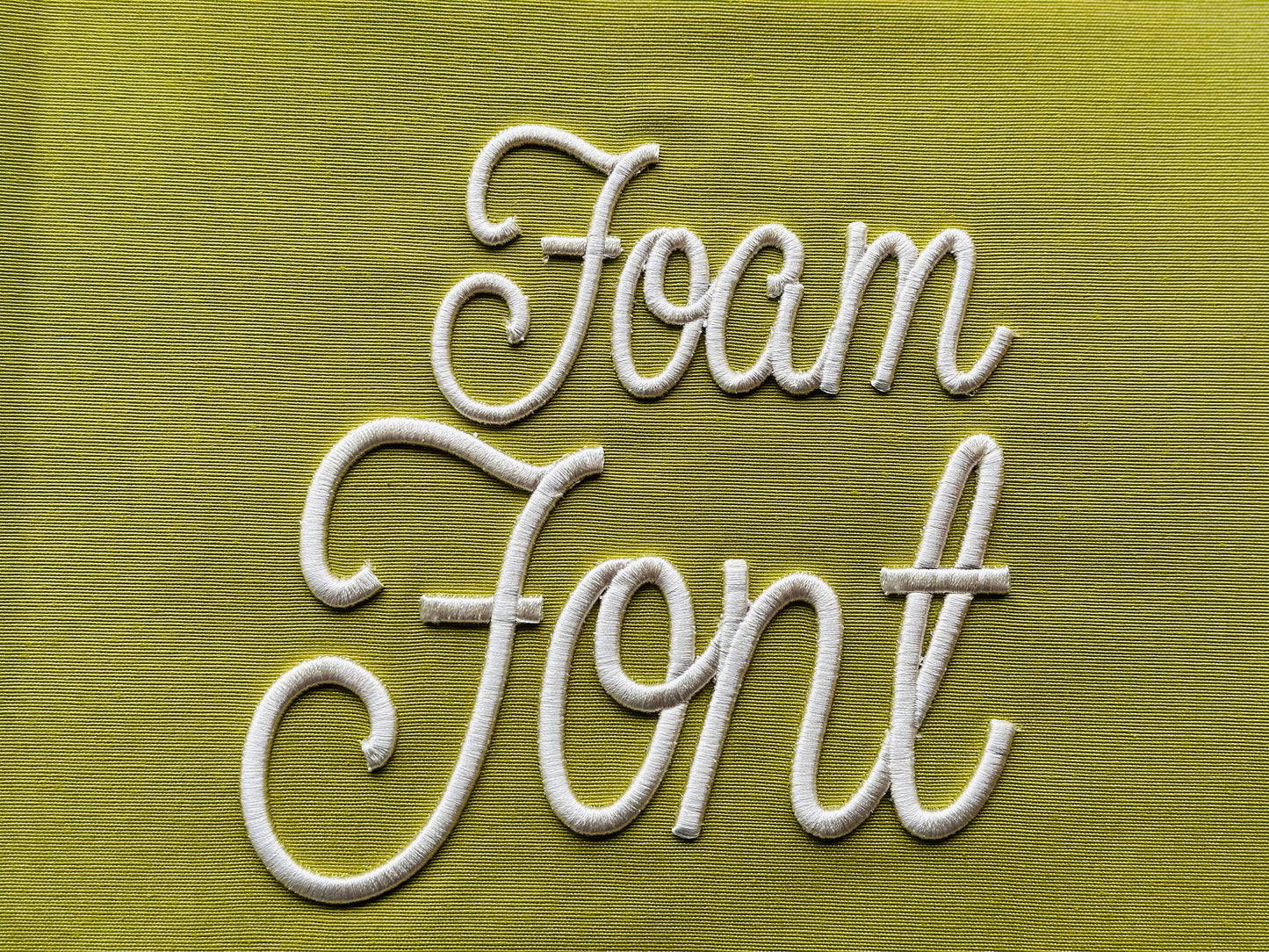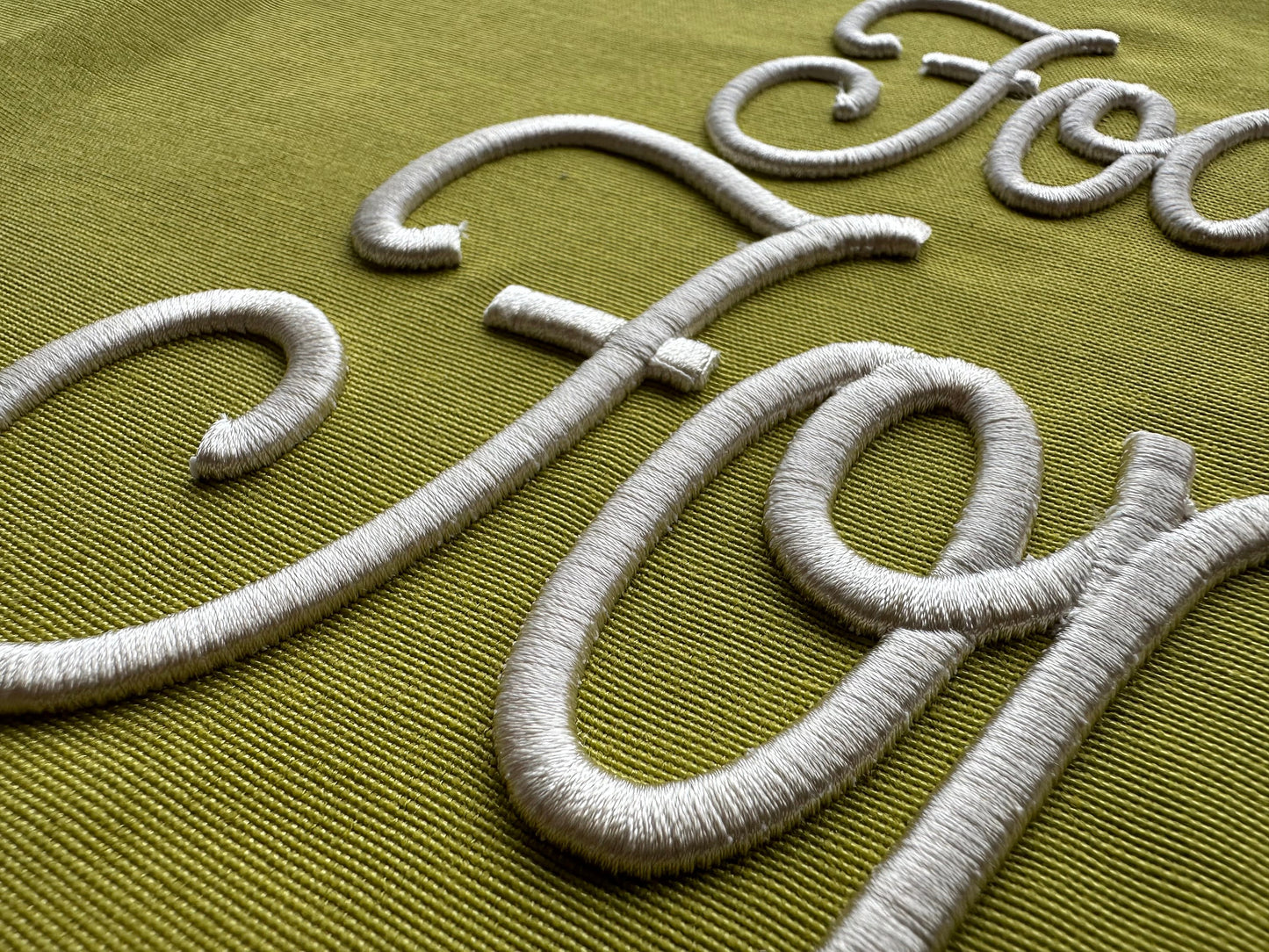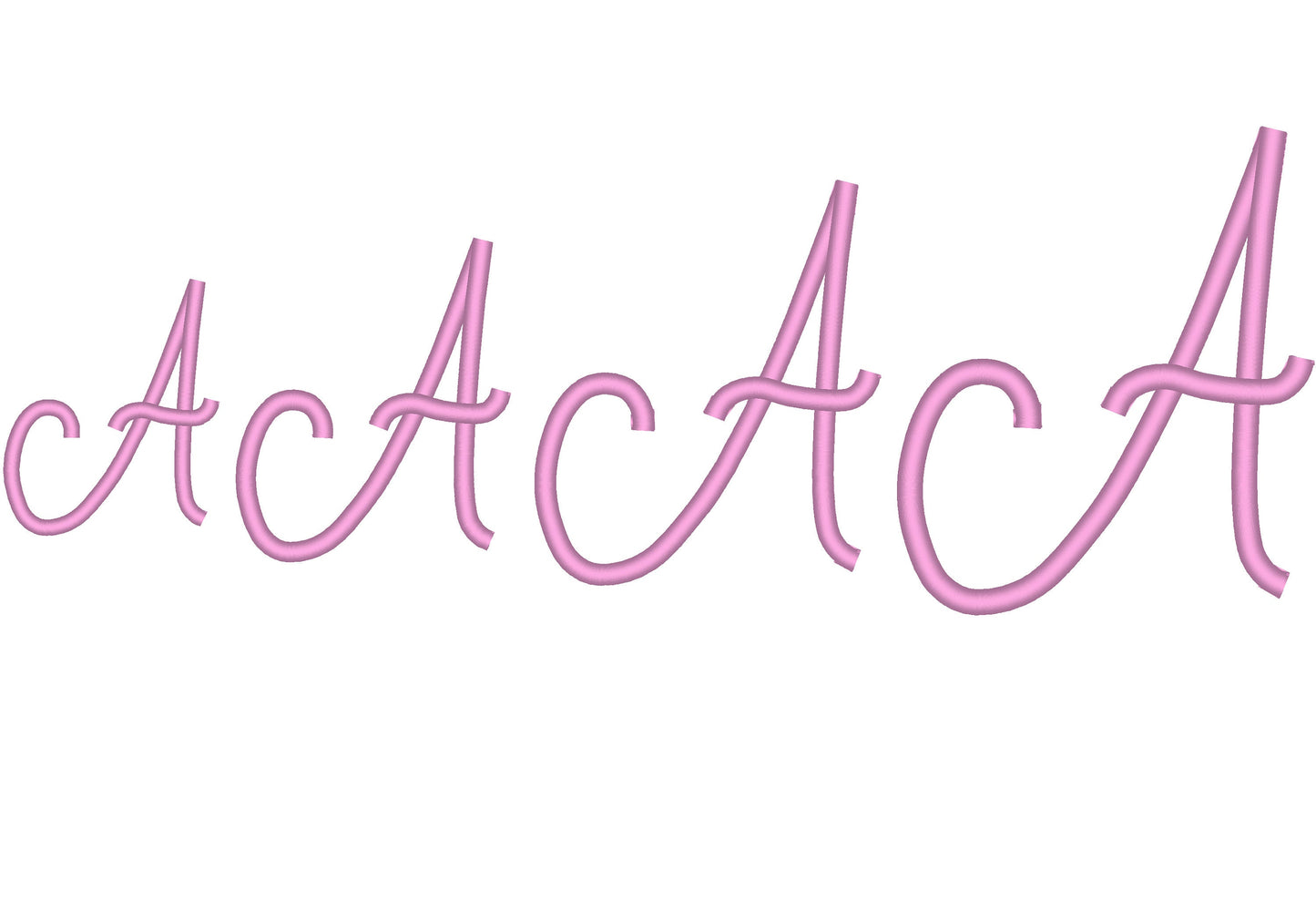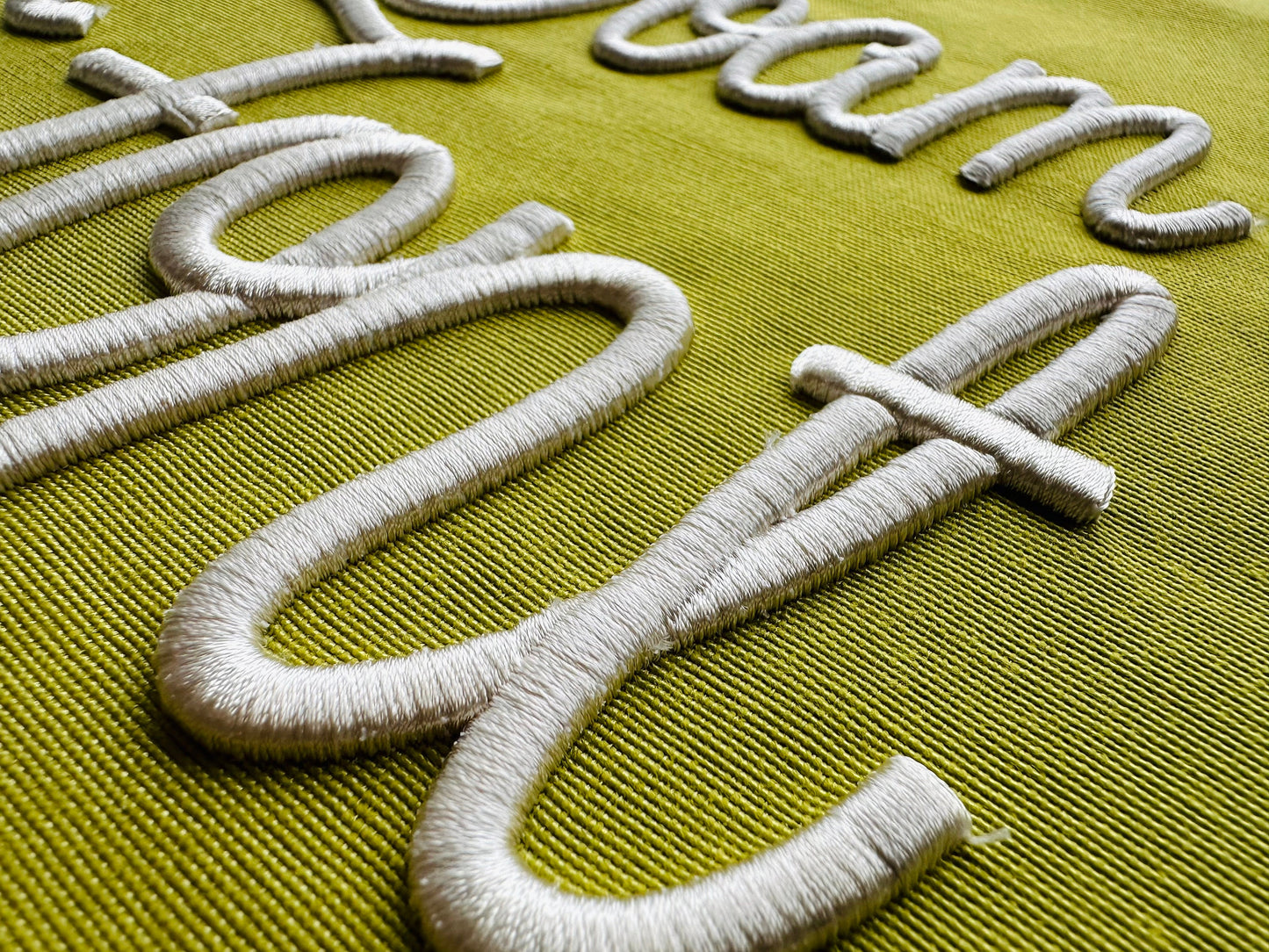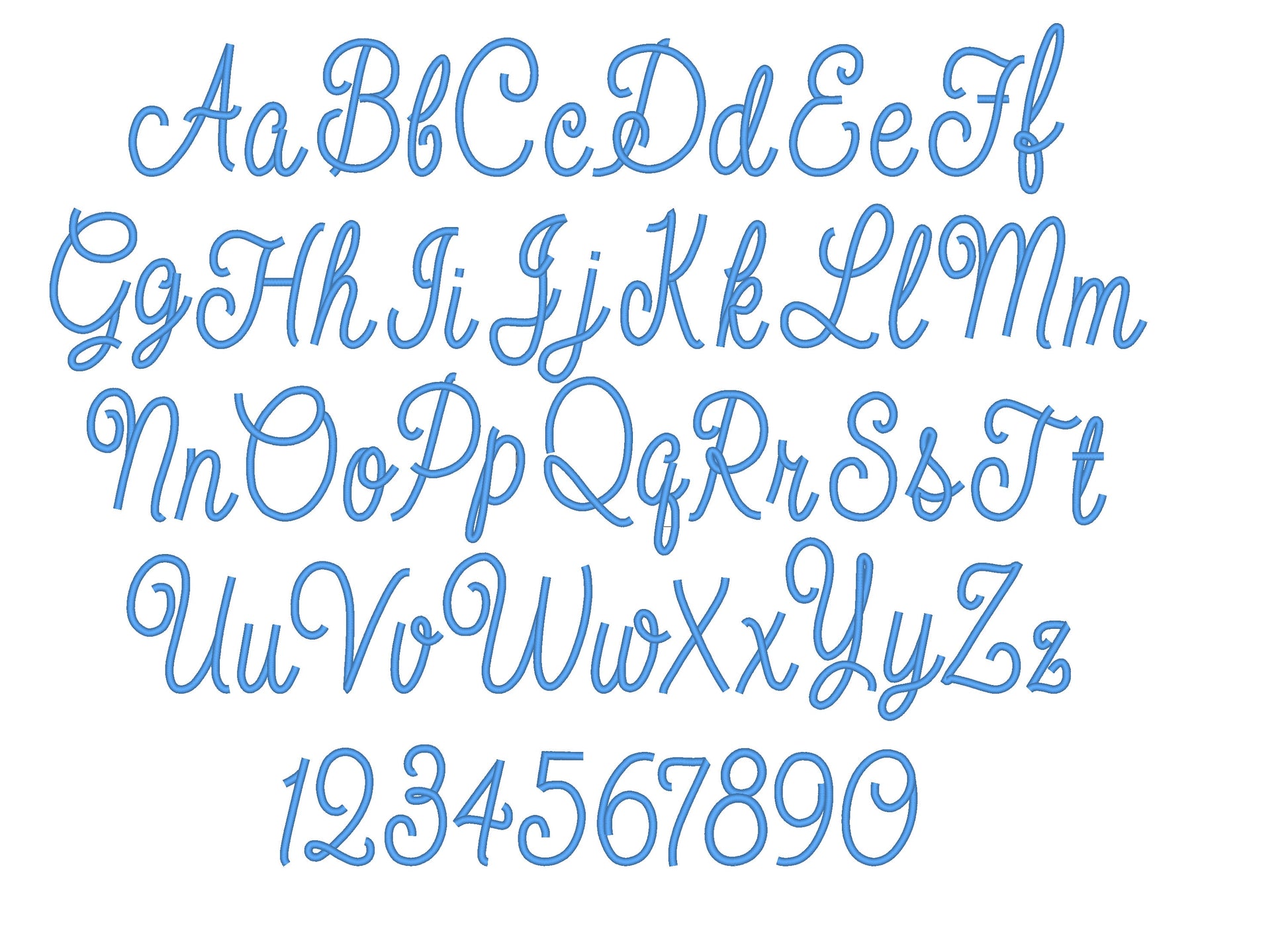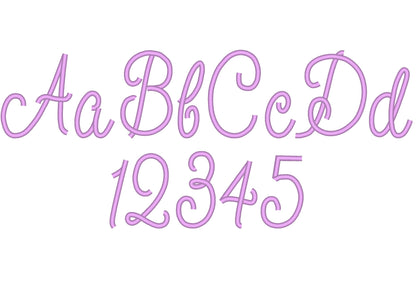
The design looked amazing and was very easy to use with the craft foam.
I can't wait to play around with this font. Going to be amazing
Stitched our great, thank you
Stitch out perfectly, just what i needed!
love the way this stitched out.
I had fun with this font
Pretty font. Stitches out well.
Font does not stitch out well. Foam can be seen through stitches.
Great idea, can't wait to make it!
File was very easy to use
this has a great stitch out.
This is a lovely design
very nice and great stitch out!
perfect perfect
Easy to open and stitched out great
It will look great in my upcoming project!
As always the font stitched out wonderfully
I’m sure this is a great font and stitches well. I have bought several fonts from this site. I did not like that the letters did not connect using the BX file type as well as shown in the photo.
Stitched out great! Easy to do
Stitched out nice - thank you!
Lovely font and stitch out. Don't resize down as it doesn't work (as per designer instructions!)
Stitched out on shirt perfectly!
Super cute! Gives me lots of ideas!
Great puff font to work with. Was perfect for what I needed
Qualité au top et beau rendu
This worked out perfect with my machine.
It stitched out well on. $5 hat from Dollar General!
This puff font stitches out easily. It makes a simple design look a bit more fancy.
Stitched out very neat and nice! I have tried several times with 3D puff embroidery but all failed and then i found this seller and so greatful now
These stitched out absolutely great!